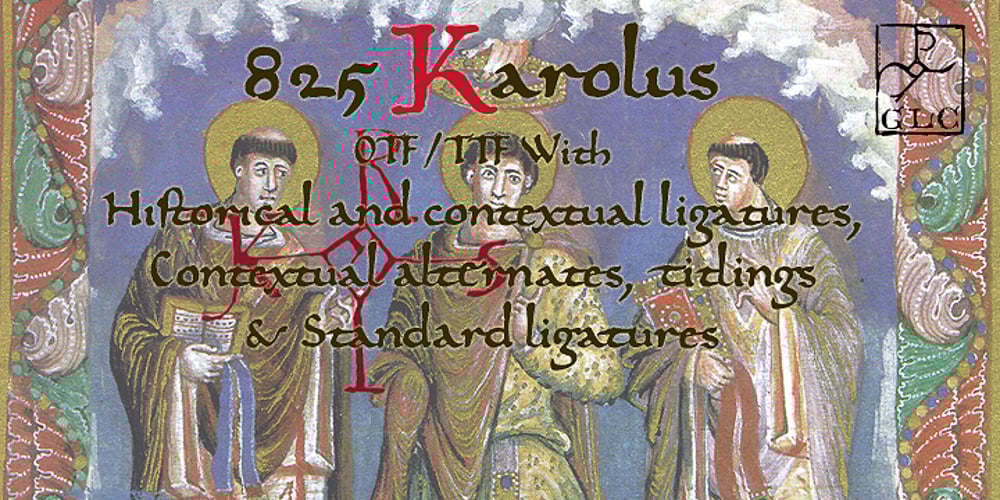
825 Karolus Font Family was designed by published by GLC. 825 Karolus contains 1 styles and family package options. In the beginning of the 800s, during the reign of Carolus Magnus (or “Karolus”, as he signed himself), a great reformation of the written characters was conducted under the authority of Alcuin, Paul Diacre and Theodulfe. The new style, named “Caroline” script, was completely set up between 820 to 830. It was a regular script, with few ligatures, very legible, but only with lowercase. The capitals remained the old Romans ones. We have created the font to serve contemporary users, making a difference between U and V, and also between I and J, which had no relevance for ancient Latin scribes. We also added Thorn, Oslash, Lslash, W, and and the usual accented characters that did not exist at the time. Titlings (initial letters, without accents), historical and contextual alternates completes the set (in two separate files for MacOS9).